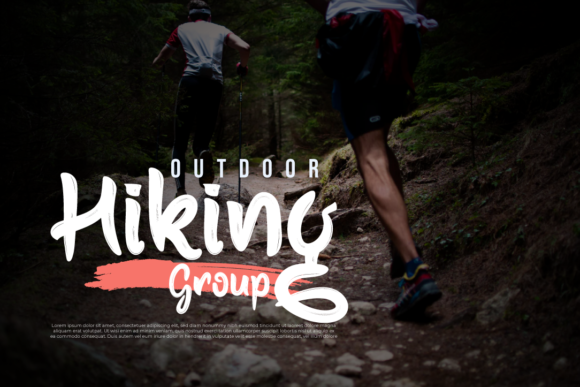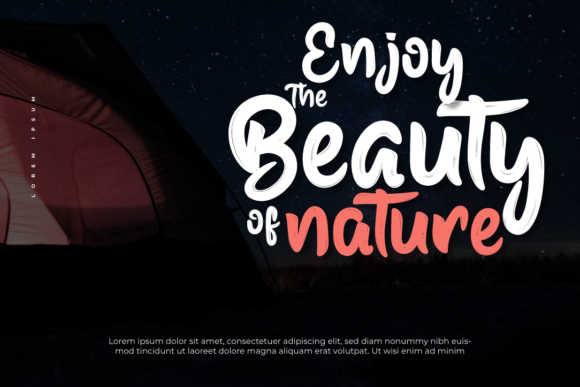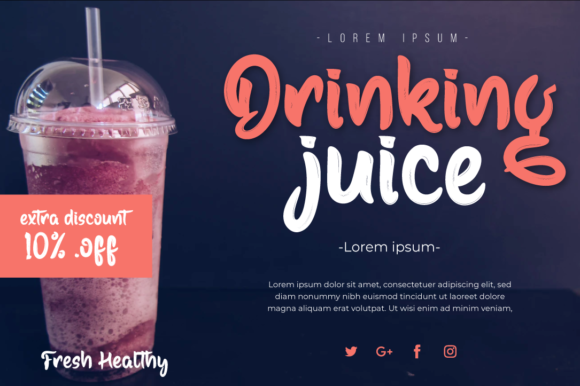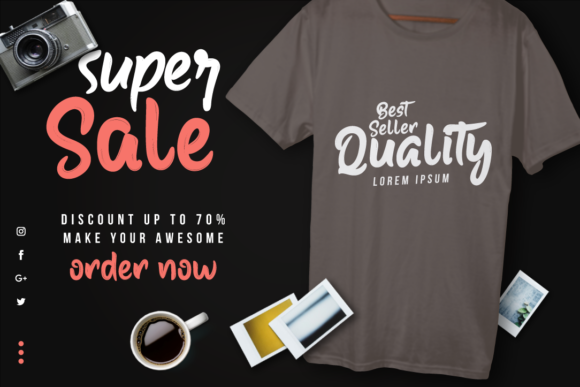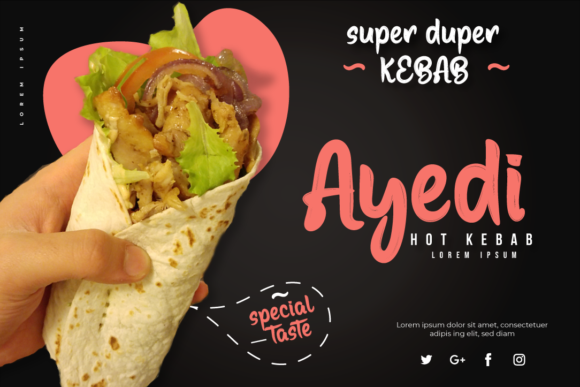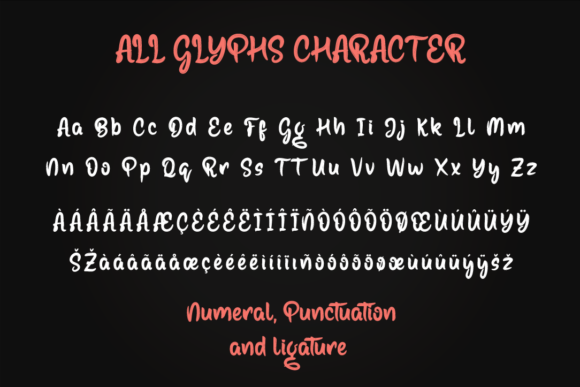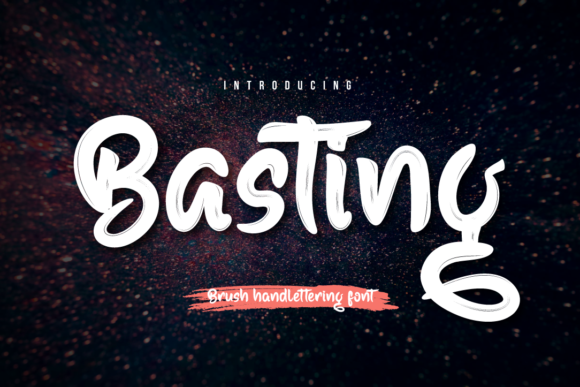
Basting Font: The Perfect Brush Handwritten Font for Outstanding Designs
Are you a designer or crafter looking for a unique and creative font to elevate your designs? Look no further than Basting Font, a beautiful brush handwritten font that is perfect for making original and outstanding designs. In this article, we’ll explore the features and benefits of Basting Font, and how it can be used to enhance a wide range of design projects.
What is Basting Font?
Basting Font is a brush handwritten font that is designed to mimic the look and feel of handwritten text. With its unique and expressive letterforms, Basting Font is perfect for adding a personal touch to your designs. The font is highly legible and versatile, making it suitable for use in a wide range of design projects, from branding and advertising to posters, banners, and packaging.
Features of Basting Font
Basting Font has a number of features that make it an ideal choice for designers and crafters. Some of the key features of the font include:
- Unique and expressive letterforms: Basting Font has a distinctive and hand-crafted feel that sets it apart from more traditional fonts.
- Highly legible: Despite its handwritten feel, Basting Font is highly legible and easy to read, making it perfect for use in body text and headlines.
- Versatile: Basting Font is suitable for use in a wide range of design projects, from formal and professional to informal and playful.
Uses for Basting Font
Basting Font is a versatile font that can be used in a wide range of design projects. Some of the most popular uses for the font include:
- Branding and advertising: Basting Font is perfect for creating eye-catching logos, advertisements, and marketing materials that stand out from the crowd.
- Posters and banners: The font’s large and expressive letterforms make it perfect for use in posters, banners, and other large-format designs.
- Packaging: Basting Font can be used to add a personal touch to product packaging, making it perfect for crafters and small business owners.
- Podcasts and outdoor activities: The font’s casual and playful feel makes it perfect for use in podcast artwork, outdoor gear, and other designs related to outdoor activities.
- Apparel and quotes: Basting Font can be used to create eye-catching t-shirt designs, quote graphics, and other typographic designs.
- Beverages and food packaging: The font’s unique and expressive letterforms make it perfect for use in beverage and food packaging, such as coffee cups, labels, and menus.
Tips for Using Basting Font
Here are a few tips for getting the most out of Basting Font:
- Experiment with different sizes and colors: Basting Font looks great in a variety of sizes and colors, so don’t be afraid to experiment and find the combination that works best for your design.
- Use it to add a personal touch: Basting Font’s handwritten feel makes it perfect for adding a personal touch to your designs. Use it to create unique and eye-catching headings, titles, and quotes.
- Pair it with other fonts: Basting Font pairs well with a variety of other fonts, including serif and sans-serif fonts. Experiment with different pairings to find the combination that works best for your design.
Basting Font is a unique and versatile brush handwritten font that is perfect for making original and outstanding designs. With its highly legible and expressive letterforms, Basting Font is suitable for use in a wide range of design projects, from branding and advertising to posters, banners, and packaging. Whether you’re a designer or crafter, Basting Font is a great choice for anyone looking to add a personal touch to their designs.